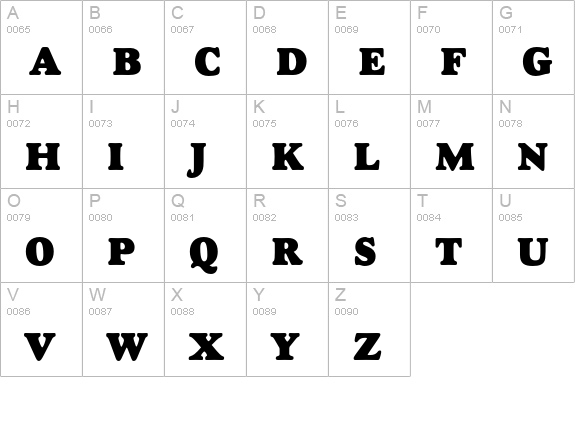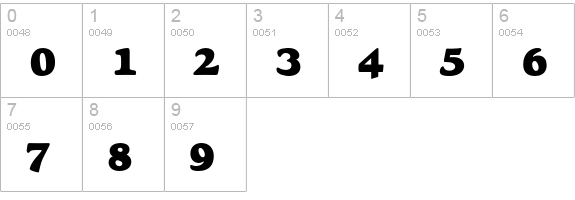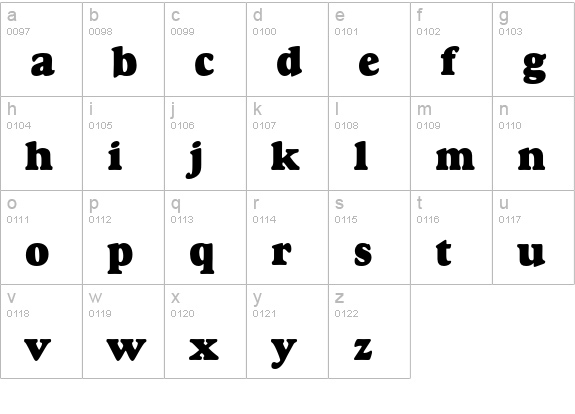
Goudy Heavyface Std font is a classic and timeless typeface that exudes strength and elegance. With its bold and distinctive letterforms, this font is perfect for making a statement in headers, titles, logos, and other prominent design elements. The robust serifs and thick strokes give Goudy Heavyface Std a commanding presence on the page. The best part is that Goudy Heavyface Std is available for free download at FontsMarket.com. This means you can easily add this versatile font to your collection without any cost. Whether you're working on a print project, web design, or any other creative endeavor, Goudy Heavyface Std will bring a touch of sophistication and authority to your typographic compositions. Don't miss out on the opportunity to enhance your designs with this exceptional font, now just a click away at FontsMarket.com.